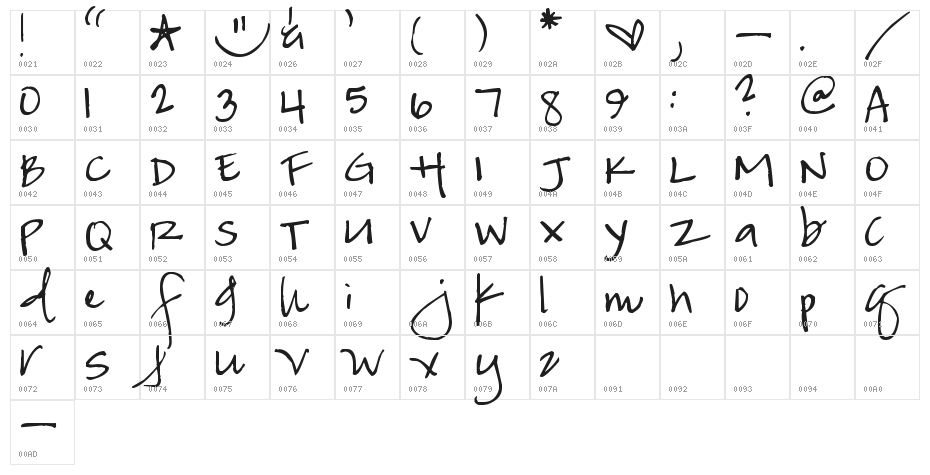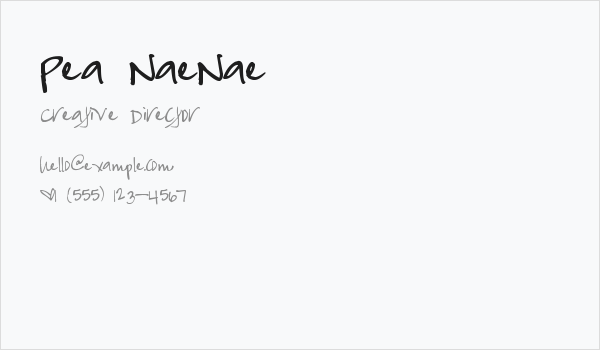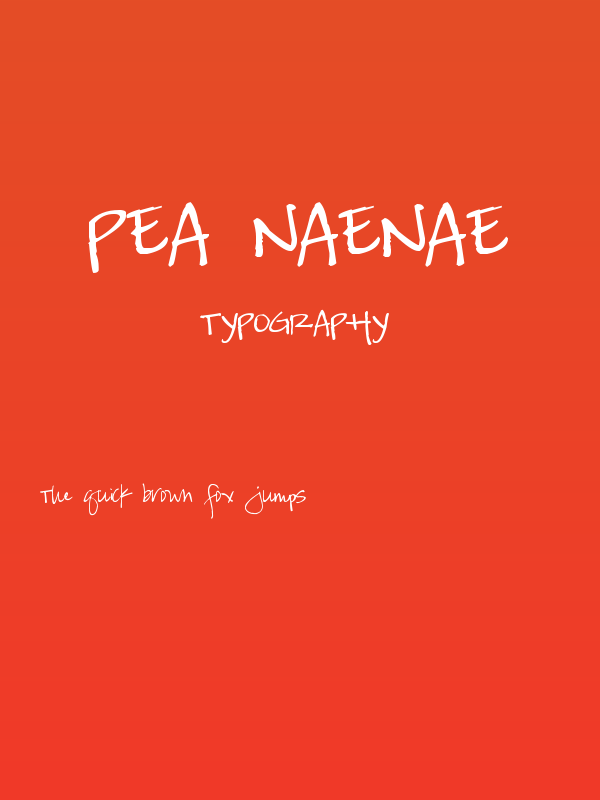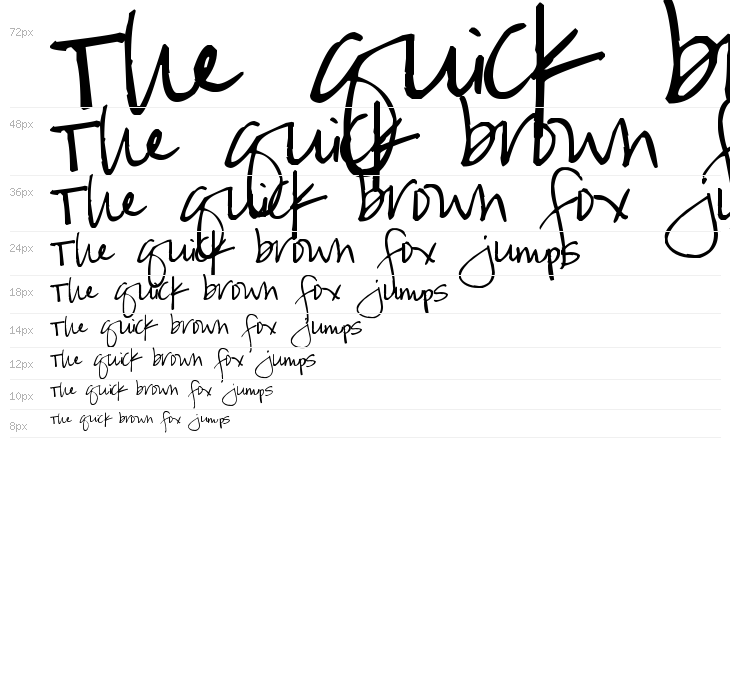
Pea NaeNae Font
Pea NaeNae Description
This font exhibits a playful and casual handwritten style, characterized by its fluid and natural strokes. The uppercase and lowercase letters maintain a consistent flow, with slight variations that add a personal touch. The numerals are bold and clear, complementing the overall informal aesthetic. Special characters are creatively integrated, enhancing the font's versatility. The font's organic appearance makes it suitable for projects that require a personal or creative flair, such as invitations, greeting cards, or artistic branding. Its legibility and charm make it a great choice for conveying warmth and approachability.
| Use Case | Headlines, Artistic projects, Personal notes |
| Proposed Projects | Ideal for invitations, greeting cards, artistic branding, and personal projects. |